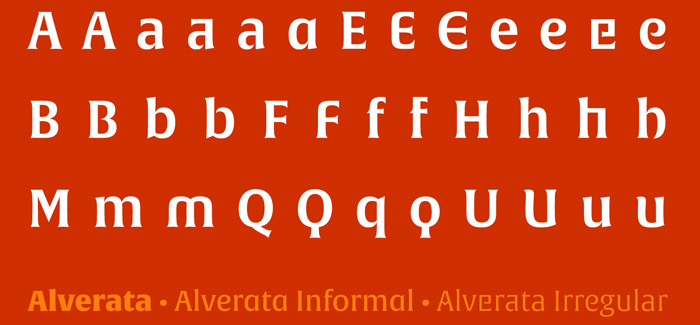
Alverata font
Alverata font by Gerard Unger (TypeTogether foundry) is a contemporary font family with a reverence to the Romanesque capitals in inscriptions of the eleventh and twelfth centuries. It is a follower of the early twentieth-century model, but tweaked so as to prevent blandness and monotony.
Alverata font is highly legible and equally beautiful on screen and on paper. Its letters are open and friendly in small sizes and lively and attractive in large sizes. They are robust, and show refinement in their detail.
Alverata font family is a comprehensive set with versions for both formal and informal applications, and with Greek and Cyrillic relatives. Alverata font includes three different fonts: Alverata, Alverata Irregular and Alverata Informal, that vary in form and width, but maintain the same spirit. The Irregular version is particularly inspired by the Insular letterforms, the uncials, and their constantly changing positioning.
Alverata type family can boast with a wide language support for Europe’s diversity of languages, combining contemporary typographical practices with features of medieval letterforms, from the time when Europe came into being. Visually, some written languages, such as Czech and Maltese, differ quite strongly from languages like English and German, notably because of their many accented characters. While other typefaces will show this difference, Alverata discards it. As a result, Alverata font enables smooth convergence of languages.
For the development of the Greek letterforms, Unger collaborated with Gerry Leonidas (University of Reading) and Irene Vlachou (Athens), and with Tom Grace on the Cyrillic letterforms.
Gerard Unger studied graphic design, typography and type design at the Gerrit Rietveld Academy, Amsterdam. He teaches as visiting Professor at The University of Reading, UK, Department of Typography and Graphic Communication, and he is Professor of Typography at Leiden University, the Netherlands. He has been awarded several Dutch and international prizes and honours, such as two honorary doctorates by the universities of Hasselt, Belgium and Tallinn, Estonia.